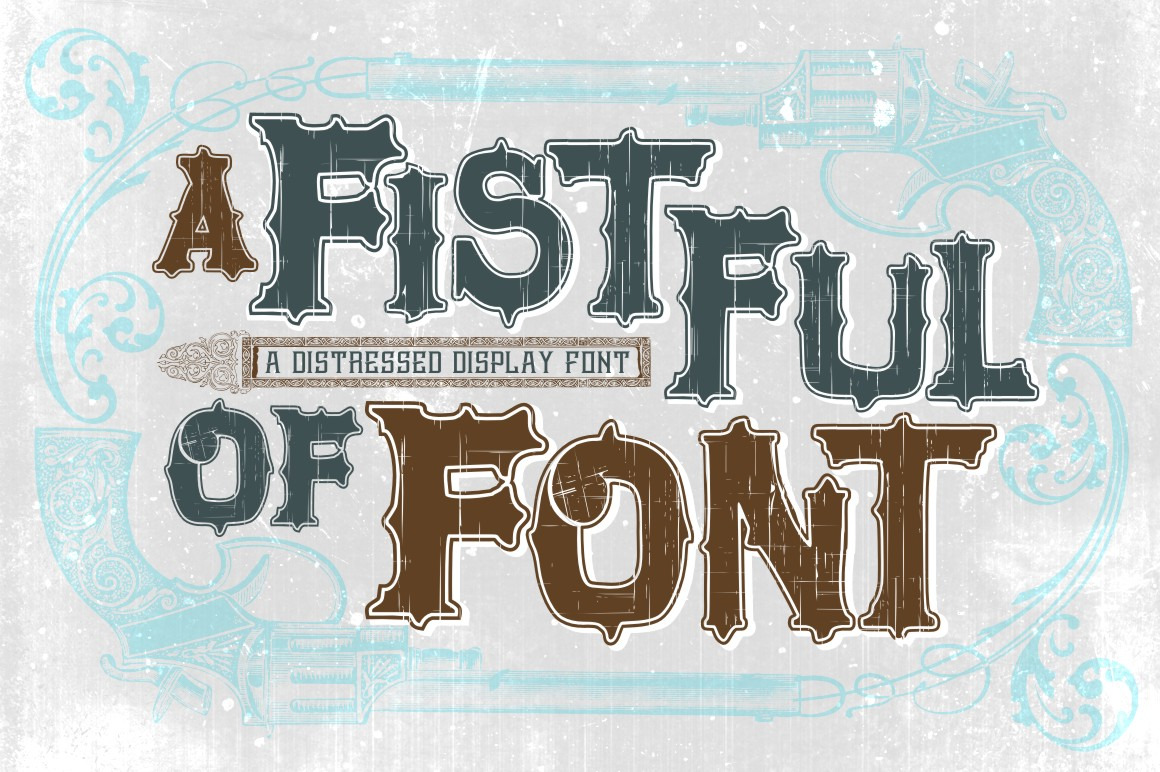
Fistful of Font
We're not going to lie to you, this unique font is best suited for display. Using it on large scale projects for titles and headers. Each letter is so true to it's own self that using this font for large portions of text at small point sizes leads to readability issues. That said, this awesome font is based on the "spaghetti western" era of film and would make the man with no name proud. The thick, bold letters stand out on any design its used. It is ruggedly distressed for that 'ol timer feel. It's best suited for BBQ joints or sauce labels, grilling events, cookouts and menu headers. The next time you have a western style project turn to this font first and it won't let you down.